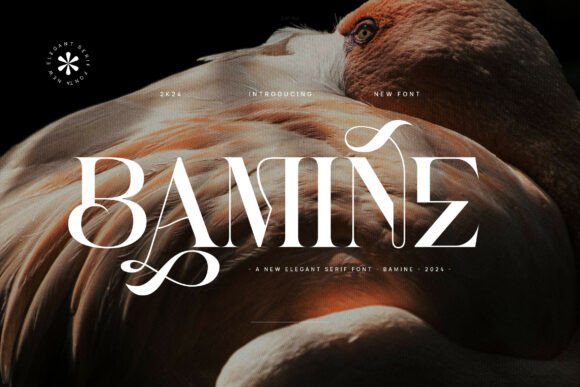
Bamine Font: Elevate Your Designs with Elegance and Boldness
Are you looking for a font that exudes sophistication, elegance, and boldness? Look no further than Bamine Font! This stunning serif font is perfect for designers and crafters who want to add a touch of luxury to their creations. With its incredibly versatile style, Bamine Font is ideal for a wide range of projects, from wedding invitations and stationery to social media posts and more.
The Characteristics of Bamine Font
Bamine Font is a beautifully crafted serif font that boasts an elegant and bold style. Its classic serif lines and refined details make it perfect for designs that require a touch of sophistication. The font’s versatility is one of its standout features, making it suitable for a variety of projects, from formal to informal. Whether you’re creating a wedding invitation or a social media post, Bamine Font is sure to make your design stand out.
What Makes Bamine Font So Versatile?
Bamine Font’s versatility can be attributed to its unique combination of elegance and boldness. The font’s serif lines provide a classic and sophisticated touch, while its bold style adds a modern and eye-catching element. This makes it perfect for designs that require a balance of elegance and edginess. Additionally, Bamine Font comes in a range of weights and styles, allowing you to experiment with different looks and feels to find the perfect fit for your project.
Using Bamine Font for Wedding Invitations and Stationery
Wedding invitations and stationery are a perfect match for Bamine Font. The font’s elegant and bold style makes it ideal for formal wedding invitations, save-the-date cards, and other stationery items. You can use Bamine Font to create beautiful and sophisticated designs that will set the tone for the big day. Additionally, the font’s versatility allows you to experiment with different colors, textures, and embellishments to create a truly unique and personalized design.
Creating Eye-Catching Social Media Posts with Bamine Font
Bamine Font is not just limited to print designs; it’s also perfect for creating eye-catching social media posts. The font’s bold style and elegant serif lines make it perfect for grabbing the attention of your followers and standing out in a crowded feed. You can use Bamine Font to create stunning social media graphics, quotes, and promotional posts that will elevate your brand’s online presence.
Tips and Tricks for Using Bamine Font
Here are some tips and tricks for getting the most out of Bamine Font:
- Experiment with different weights and styles to find the perfect fit for your project.
- Pair Bamine Font with other fonts to create a unique and visually appealing combination.
- Use Bamine Font in combination with beautiful colors and textures to add depth and interest to your design.
- Don’t be afraid to get creative and try out new and innovative ways to use Bamine Font.
Bamine Font is a stunning serif font that offers a unique combination of elegance and boldness. Its versatility makes it perfect for a wide range of projects, from wedding invitations and stationery to social media posts and more. With its classic serif lines, refined details, and range of weights and styles, Bamine Font is sure to elevate your designs and take them to the next level. So why wait? Fall in love with Bamine Font and start creating gorgeous designs today!